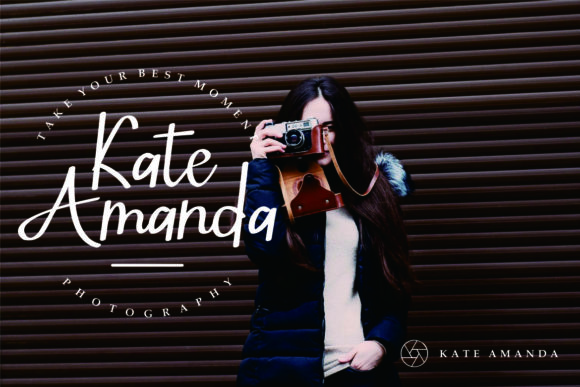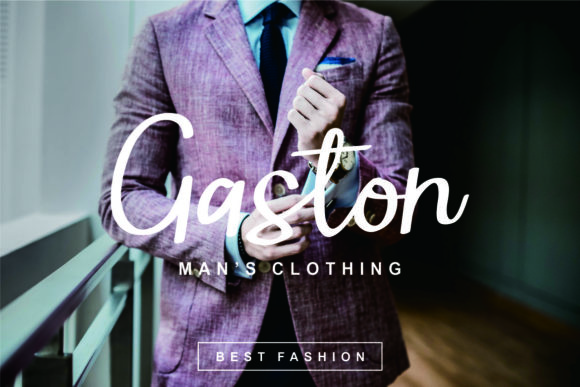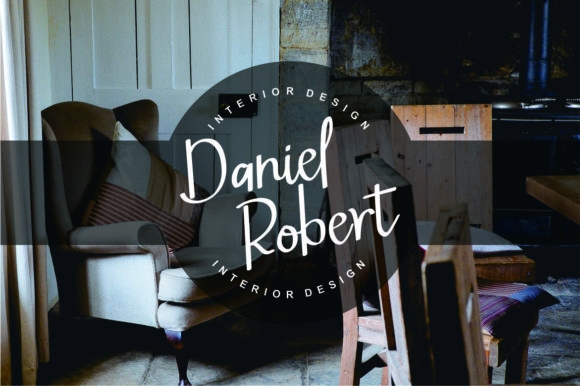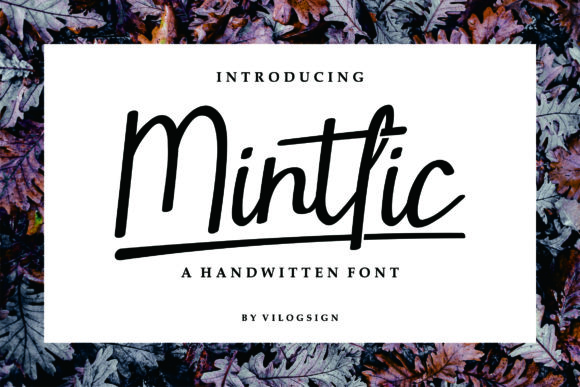
Mintlic Font
The Mintlic is an unique handwritten font. It has a cool and modern style and will add a striking touch to your designs.
It’s perfect for creating logos, signatures, labels, packaging design, blog headlines, social media posts, quotes, branding, wedding stationery and so much more!